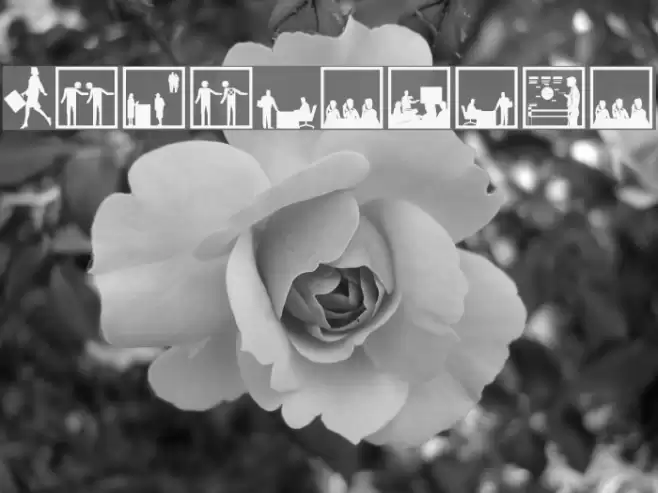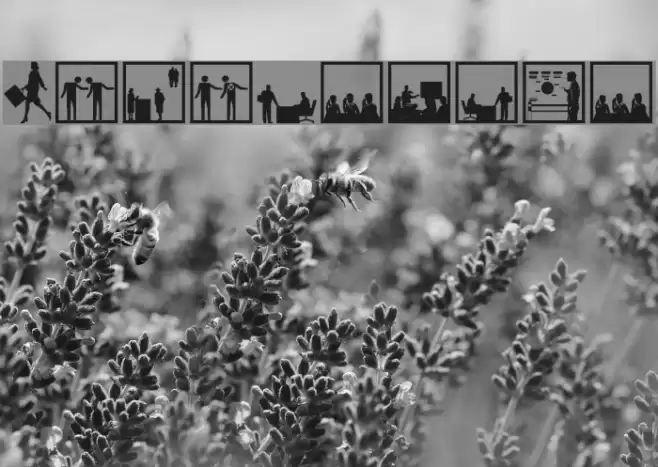
A pictogram-style dingbat font featuring various business and office-related silhouettes, including people in meetings, presentations, working at desks, and collaborative activities, all rendered in bold black shapes with minimal detail.
Business-themed pictogram font with office and teamwork silhouettes from Uncategorized fonts.
- Proposed Projects: Infographics, business presentations, instructional materials, signage, educational resources, and visual storytelling.
- Overall Style: Modern, Decorative
- Use Case: Icons, Infographics, Visual aids, Decorative elements